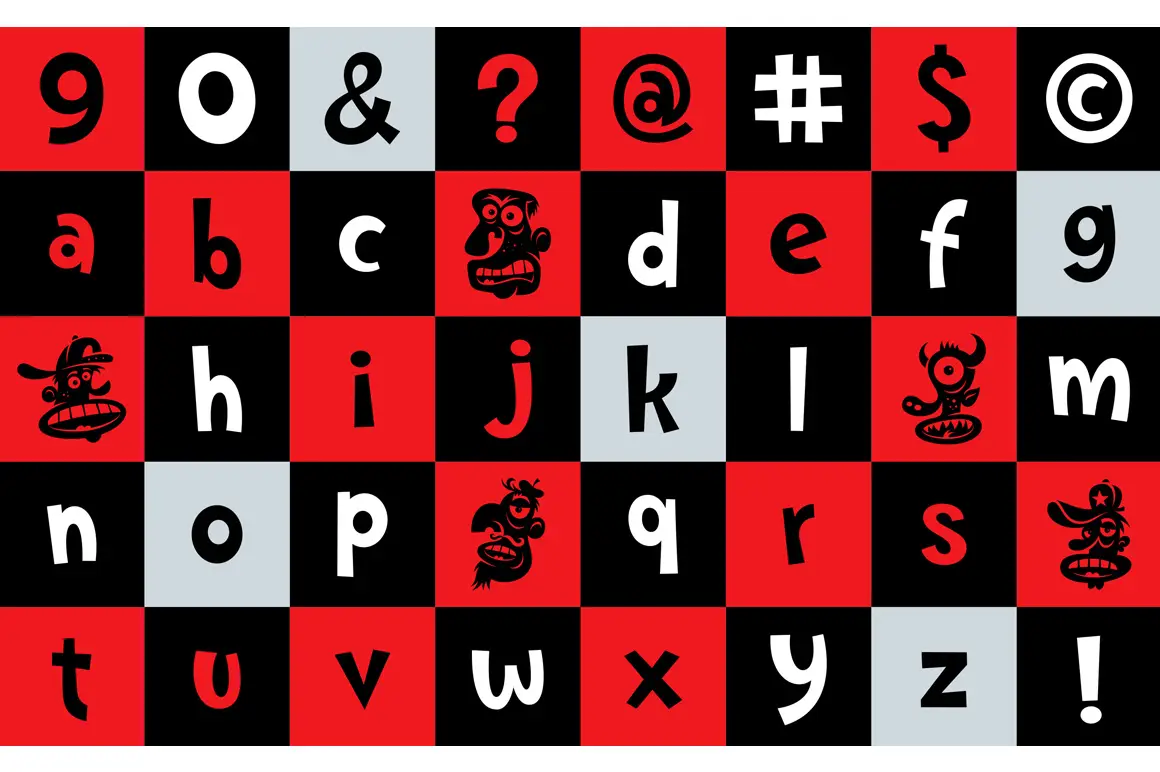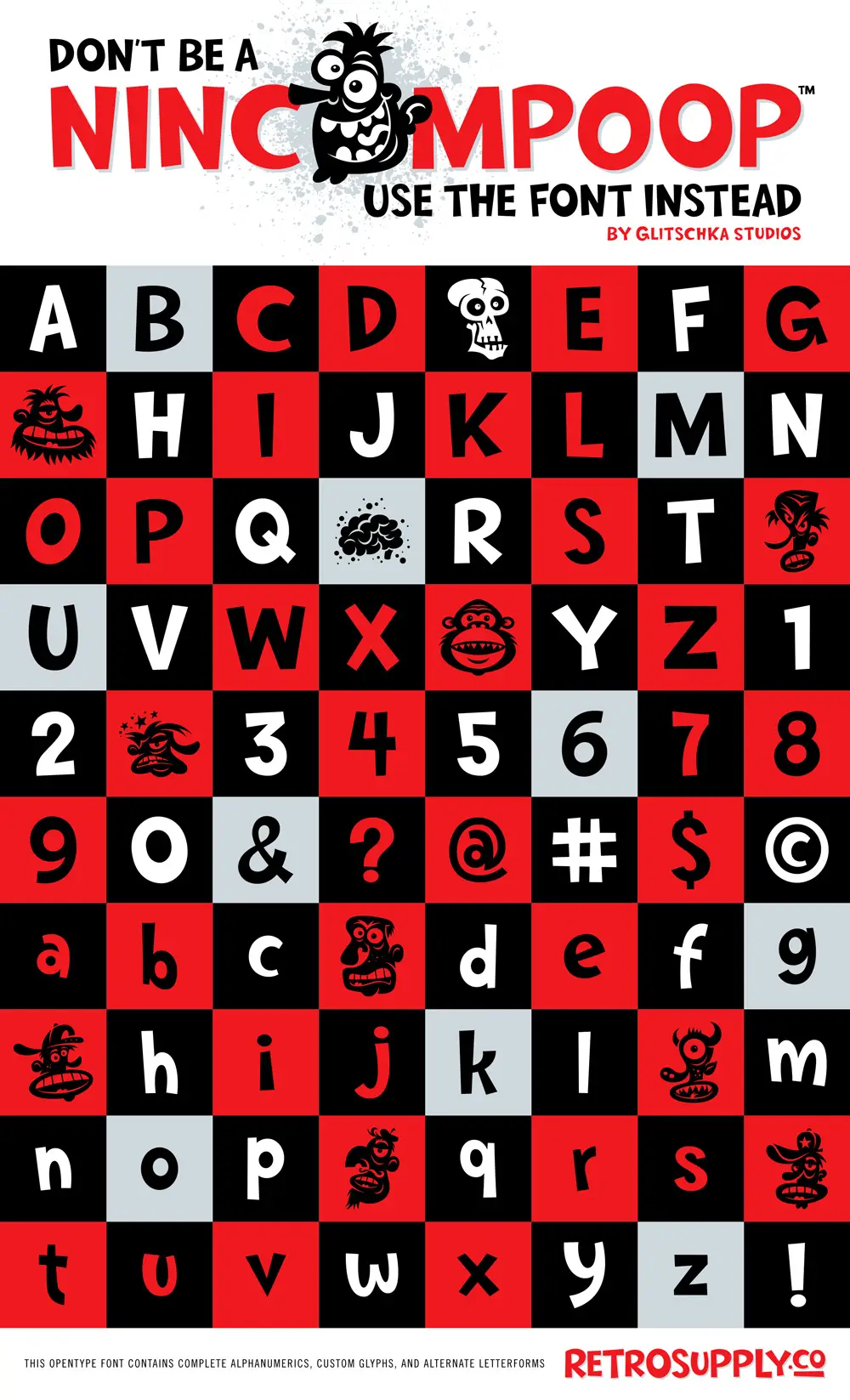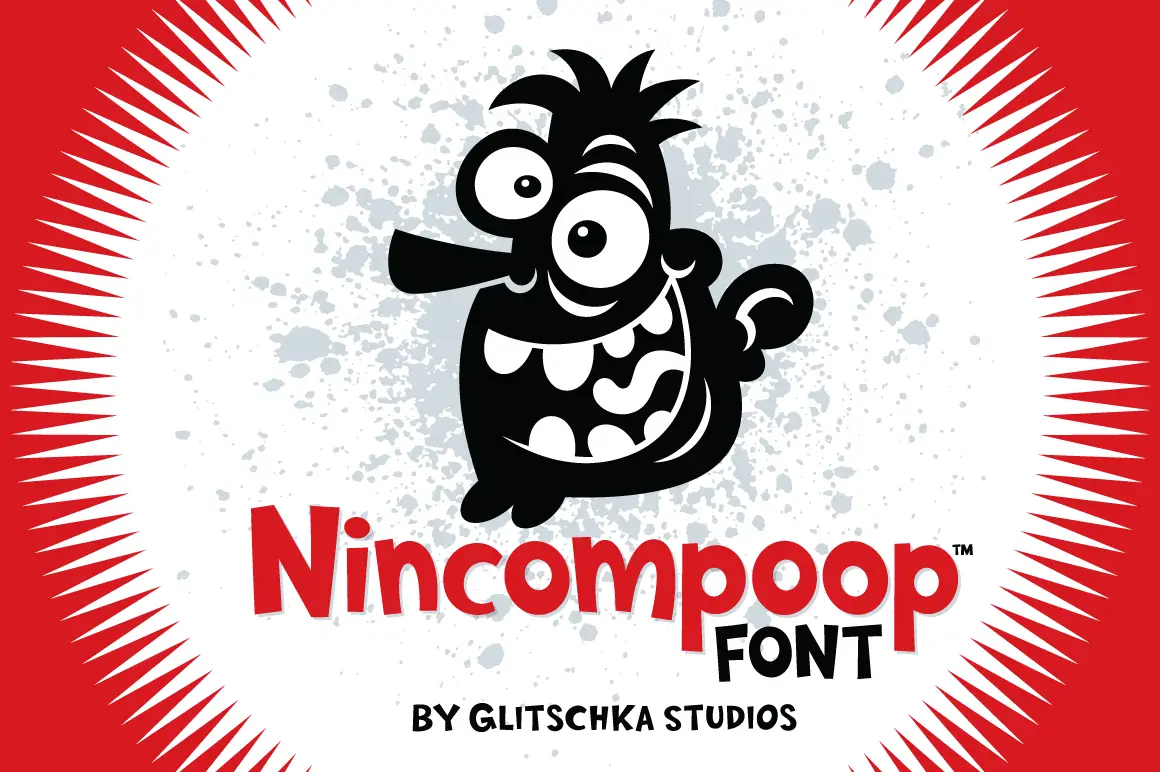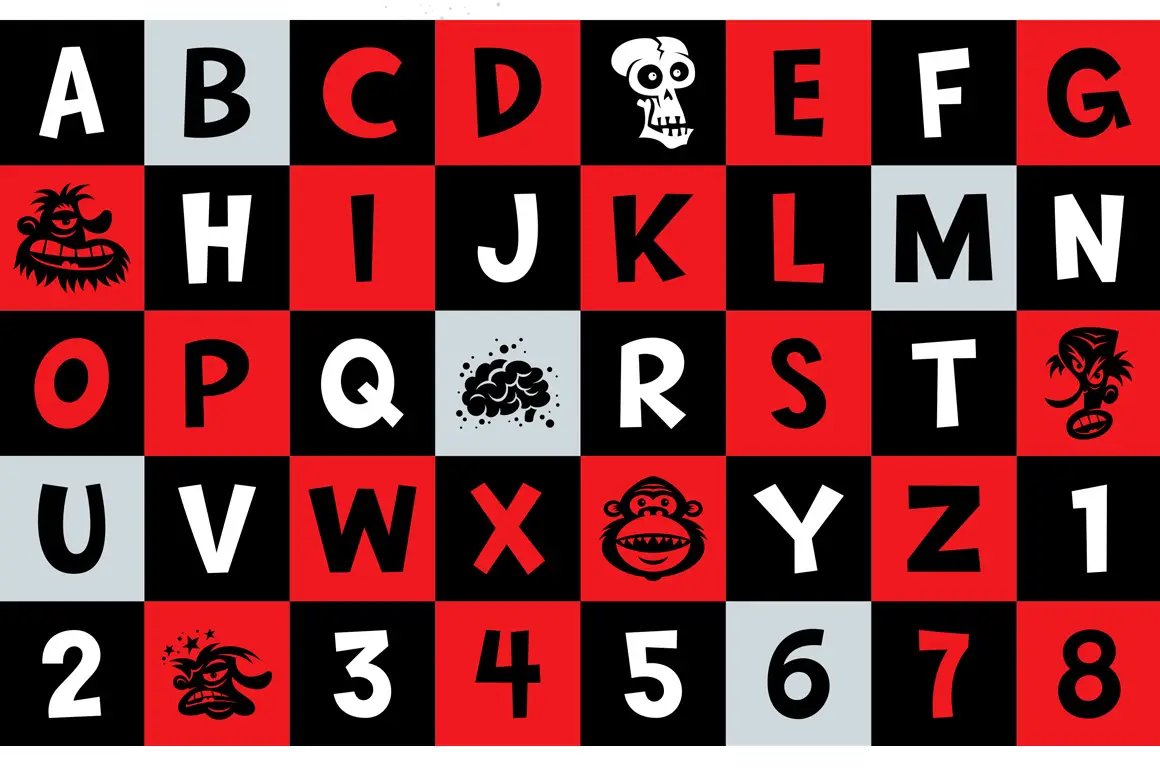
The Retrosupply Font Bundle
The Retrosupply Font Bundle offers a diverse collection of high-quality fonts designed for various creative projects. This bundle includes a range of styles, from elegant serif fonts to modern sans-serif options, ensuring you have the perfect typeface for any design need.
• Multiple font styles: serif, sans-serif, script, and display
• Various weights: light, regular, bold, and extra bold
• Optimized for both print and digital use
• Extensive language support
• Unique character sets for creative expression
• Perfect for branding, logos, web design, and UI projects
• Combine different styles from the bundle for a cohesive look
• Experiment with weights to create visual hierarchy in your designs
• Use in both digital and print formats for versatility